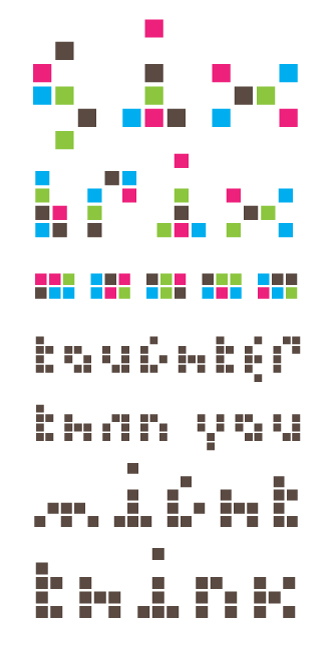
• A quick little experiment building an alphabet from exactly six bricks for each letter. Some letters are more difficult than others. Obviously experimental, but I figured I'd go ahead and share it.
Quick sample.
There is some spatial/logic puzzle game lurking in this innovative design. I don’t know what it looks like, but I know it is there. The period brings a smile to my face. :^)
Interesting :-)